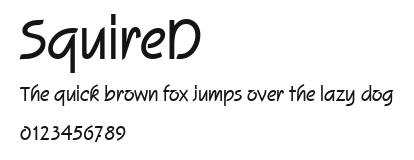
SquireD Preview
• Font Name: SquireD
• Full Font Name: SquireD Bold
About SquireD.ttf
SquireD.ttf is a modern, elegant sans-serif font designed for ultimate readability and visual harmony. Perfect for branding, headlines, web design, and print materials.